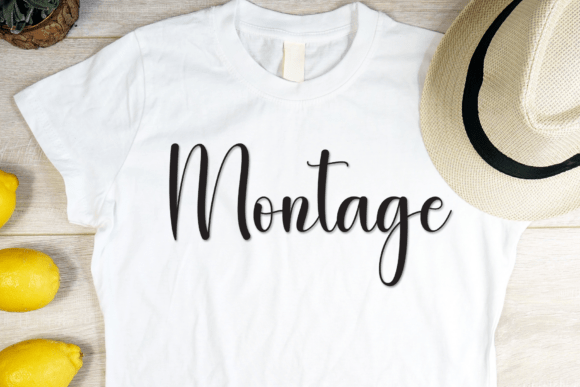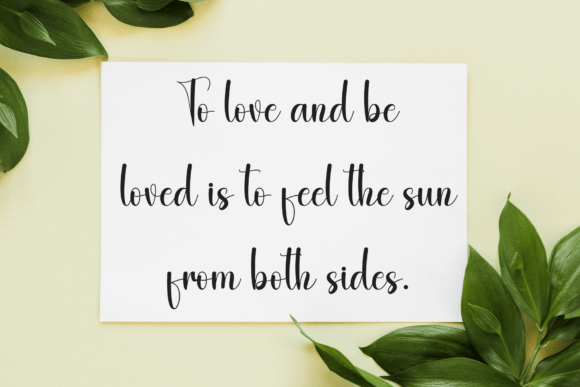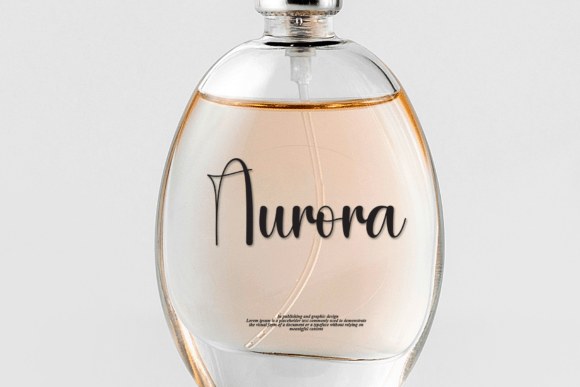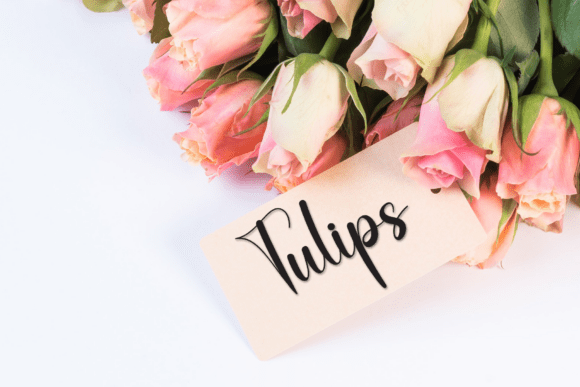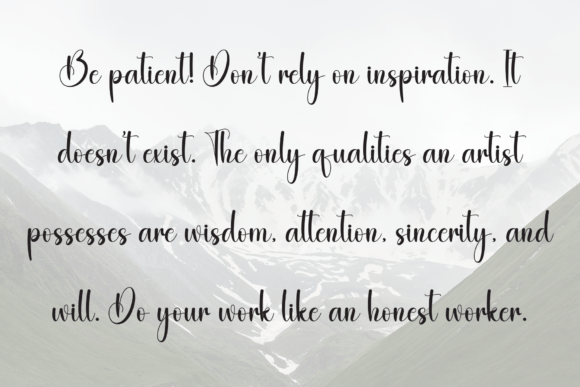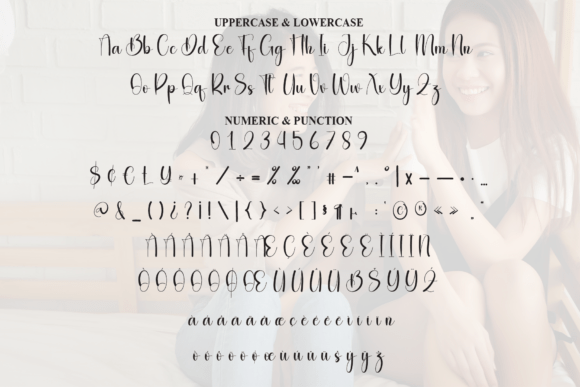
The Ultimate Guide to Bestie Font: Elevate Your Designs with Elegance and Flair
I’ll never forget the time I was working on a branding project for a trendy boutique, and I just couldn’t find the right font to capture their unique vibe. The client wanted something that exuded artistic flair and contemporary elegance, but still felt approachable and fun. That’s when I stumbled upon Bestie Font, and it instantly became my go-to. In this article, I’ll share my love for Bestie Font, its features, and how to make the most of it in your designs.
What is Bestie Font?
Bestie Font is a stylish script font that embodies the perfect blend of artistic expression and modern sophistication. With its fluid brush strokes, dynamic curves, and expressive letterforms, it brings to life the essence of hand-painted calligraphy with a fresh twist. This font is ideal for a variety of design projects, including logos, invitations, packaging, and social media graphics.
• 💫 Unique and eye-catching letterforms that add a creative touch to any design
• ✅ Highly versatile and adaptable to various design styles and projects
• 🎨 Fluid brush strokes and dynamic curves that give it a natural, hand-painted feel
• 📈 Excellent for headlines, titles, and short paragraphs, but also works well for longer texts
• ⚠️ Some characters may require manual kerning for optimal spacing
• ⚠️ Limited use of uppercase letters, but the font makes up for it with stylish alternates
The Story Behind Bestie Font
Bestie Font was designed with the intention of capturing the essence of hand-painted calligraphy in a digital format. The designer aimed to create a font that felt both artistic and contemporary, with a unique twist on traditional script fonts. The result is a font that exudes elegance and flair, perfect for creative projects.
What makes Bestie Font unique? Bestie Font features fluid brush strokes, dynamic curves, and expressive letterforms that give it a natural, hand-painted feel.
Is Bestie Font suitable for body text? While Bestie Font excels in headlines and titles, it’s also legible in short paragraphs and body text.